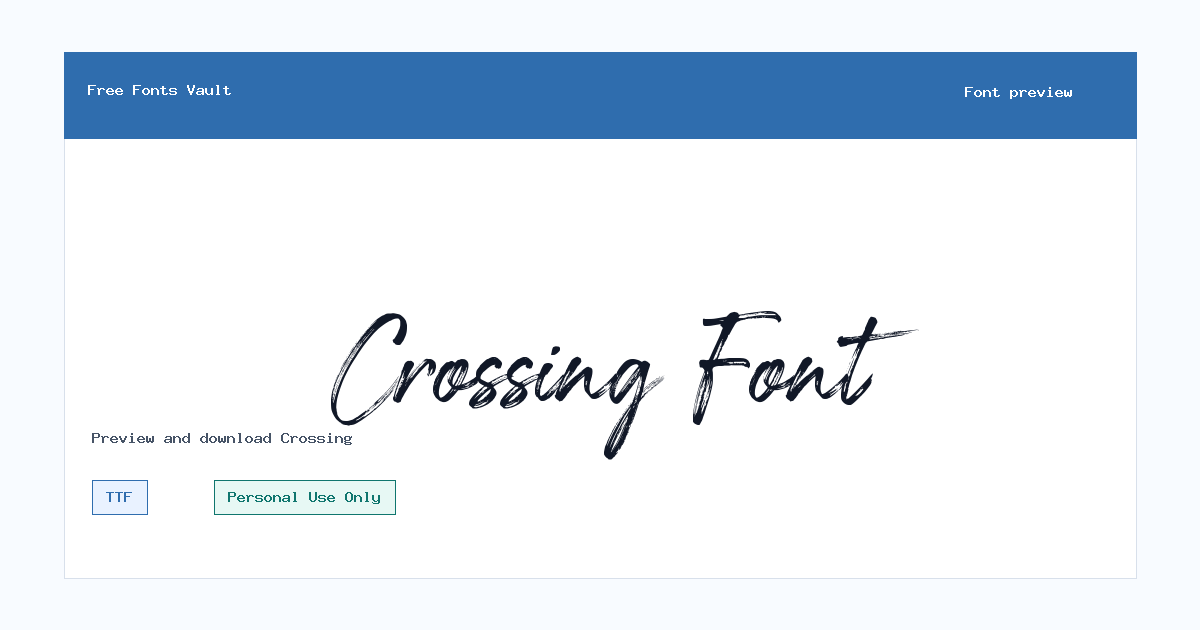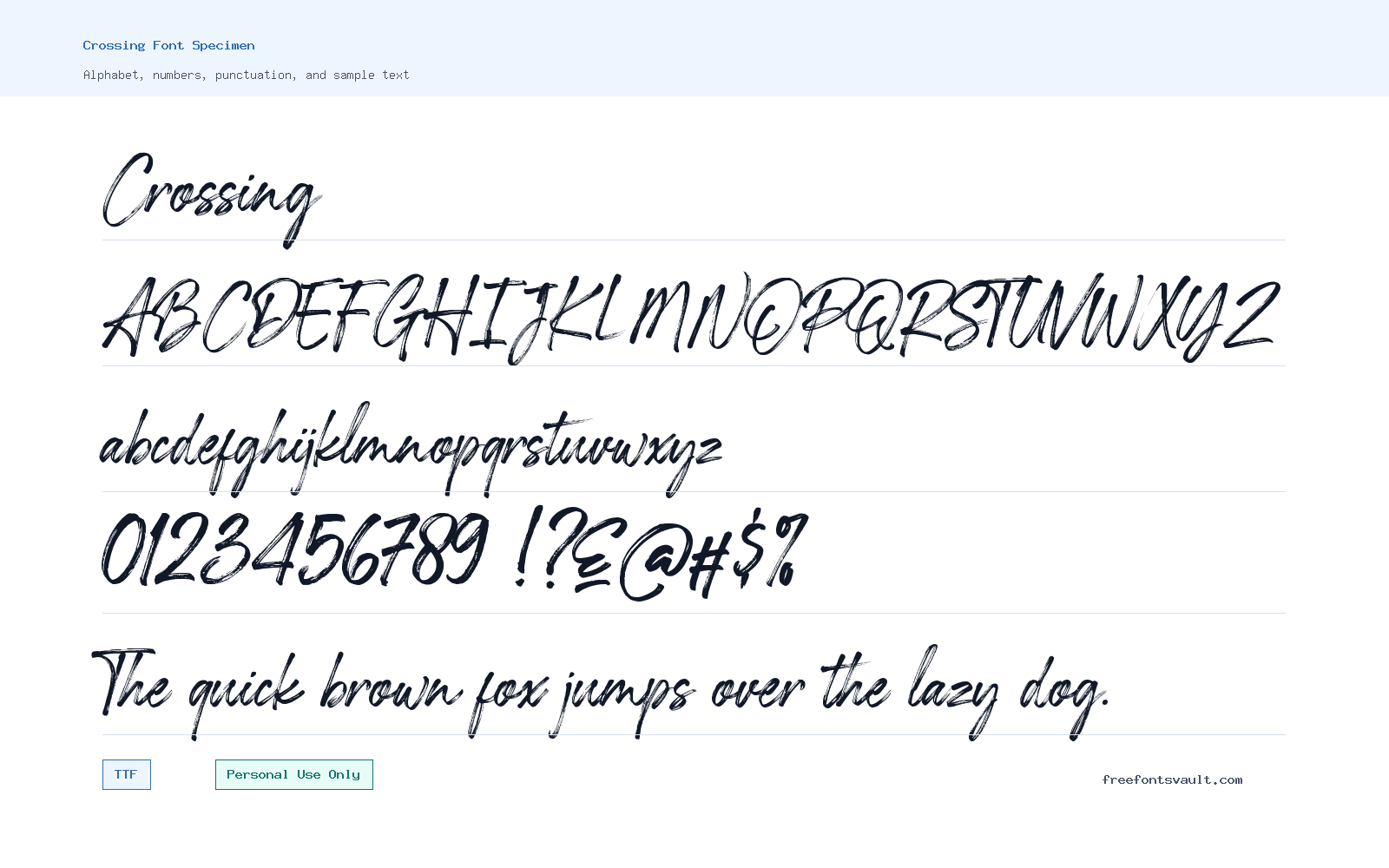
Crossing
- Designer Panggah Laksono @ Abo Daniel Studio
Crossing is a brush script font with a casual handwritten feel, made for short pieces of text that need movement and personality. It is best tested in the preview box before download, especially if you plan to use it for names, titles, or decorative lettering.
Crossing has the look of a loose brush script: connected strokes, a flowing baseline, and letter shapes that feel more expressive than formal. That makes it a good fit for display text rather than long reading. Try it for a logo mockup, a quote graphic, a label concept, a social post, a greeting card title, or a short headline where the words can stay large enough to show the script detail. Because script fonts depend heavily on spacing and word shape, a name or phrase may look very different from one sample to another. Preview your exact wording before using it in a design.
For best results, keep Crossing focused on the main words and pair it with a quiet supporting font. A clean sans serif can work well for dates, prices, captions, menus, or body copy, while Crossing handles the decorative part. Avoid setting full paragraphs, small navigation labels, or dense all-caps text in this style, because the connected brush forms may lose clarity at small sizes. If your project includes print work, test the font at the final size and check the curves, spacing, and punctuation before sending files to production.
- Brush script style with connected, handwritten-looking letterforms
- Short display text such as names, quotes, headings, invitations, labels, and social graphics
The designer is listed as Panggah Laksono at Abo Daniel Studio.
What kind of font is Crossing?
Crossing is a brush script font with a handwritten display style. It works best for short decorative text rather than long paragraphs.
How should I pair Crossing with other fonts?
Pair it with a simple sans serif or a plain serif. Let Crossing carry the decorative headline, then use the simpler font for readable details.